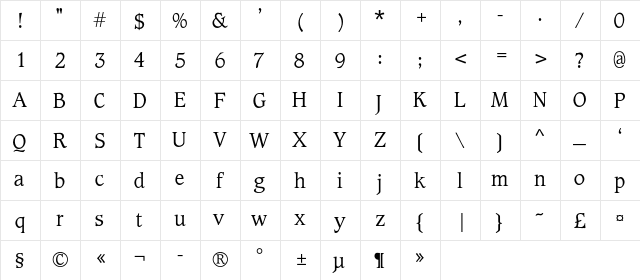
CotlinC Regular Font Preview
CotlinC Regular
Design Context for CotlinC Typeface
CotlinC is a composed and adaptable typeface that performs quietly and consistently across a wide range of design contexts.